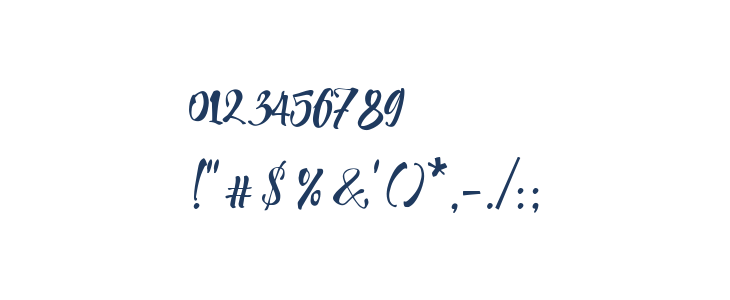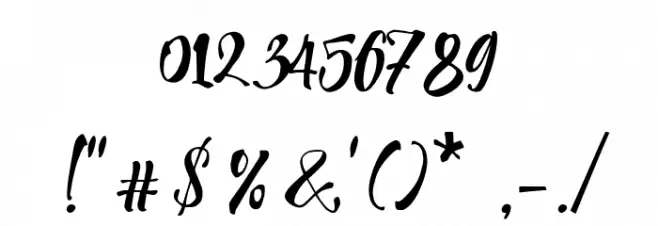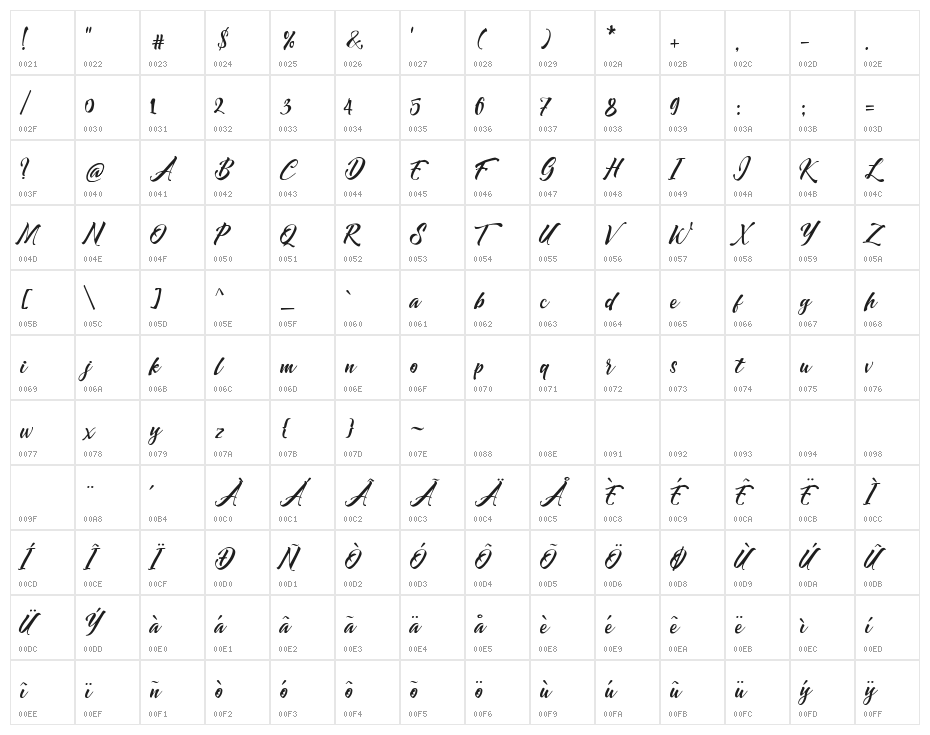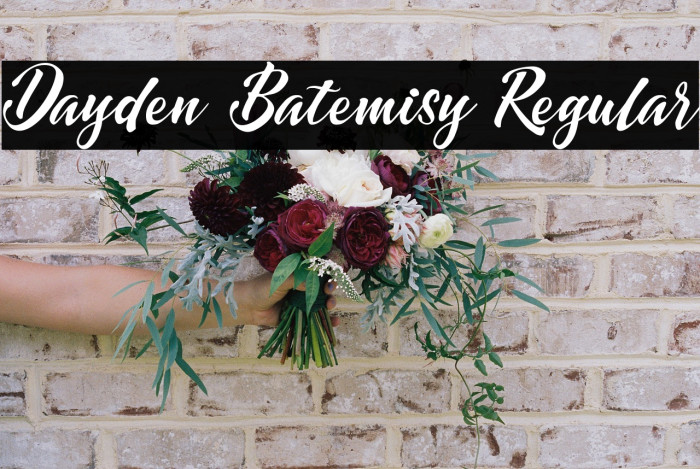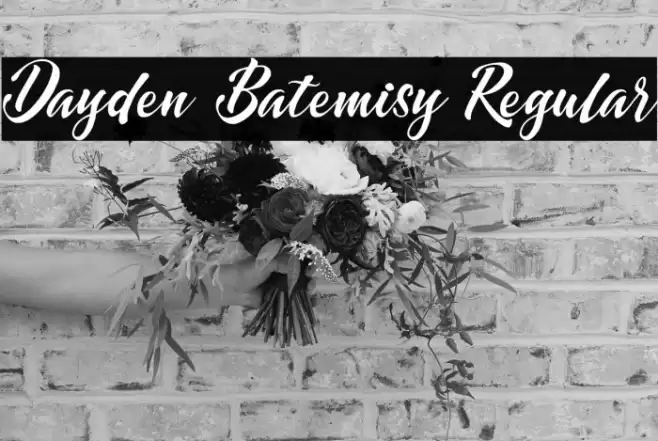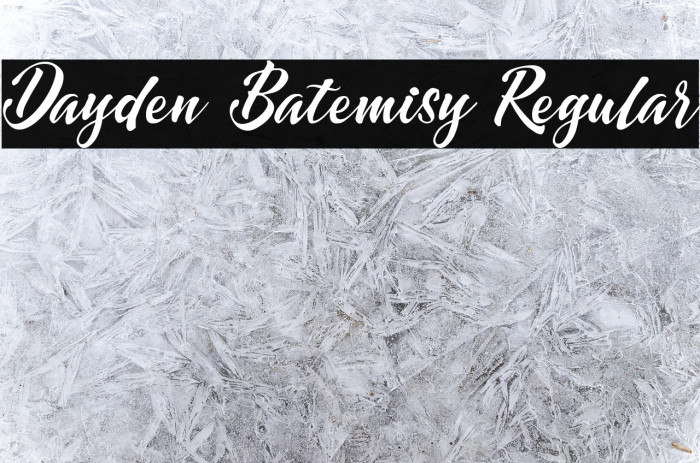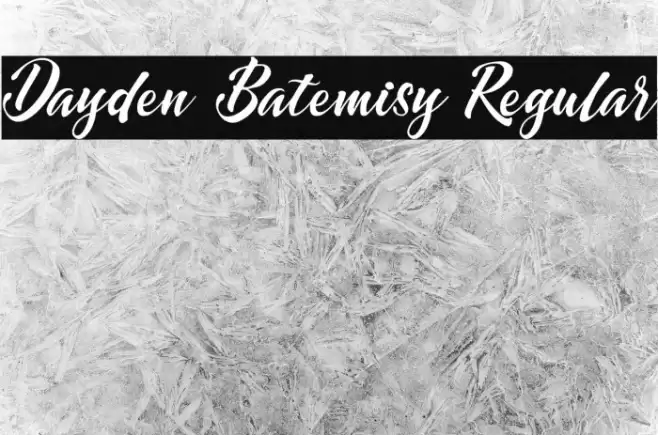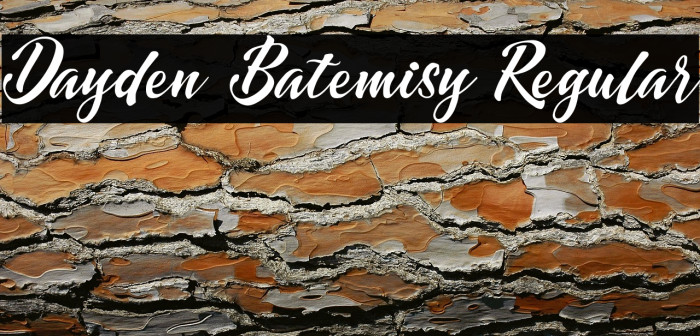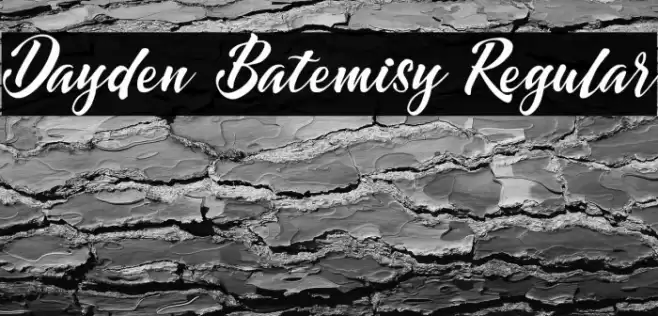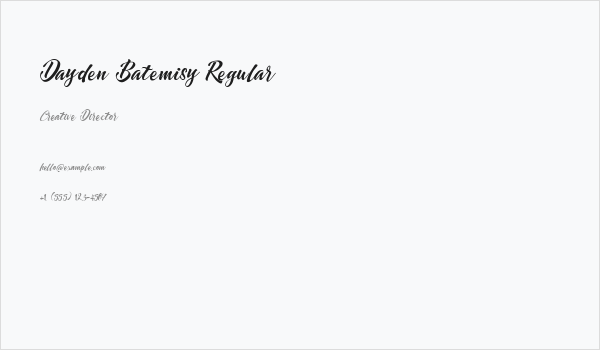
Dayden Batemisy Regular Font
Dayden Batemisy Regular Description
This font features a flowing, cursive style with elegant, sweeping strokes that give it a sophisticated and artistic appearance. The uppercase letters are bold and dramatic, with intricate curves and flourishes that add a touch of elegance. The lowercase letters maintain a consistent flow, enhancing readability while retaining the decorative flair. Numbers and special characters are designed to complement the overall style, ensuring uniformity across all elements. The font's dynamic and expressive nature makes it ideal for creative projects that require a personal touch.
ContrastHigh
Overall StyleDecorative
Use CaseLogos, Headlines, Invitations
Proposed ProjectsIdeal for wedding invitations, greeting cards, branding, and logo design.